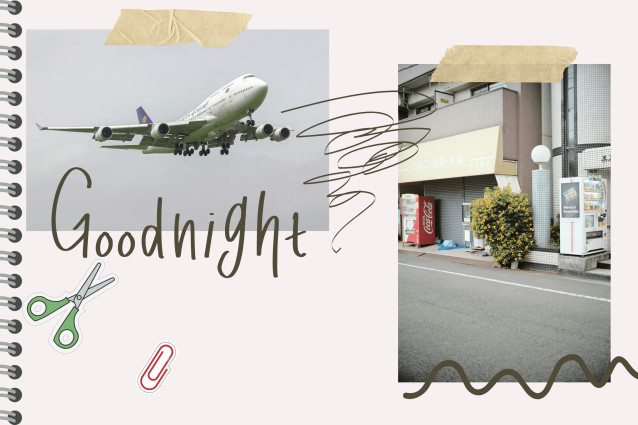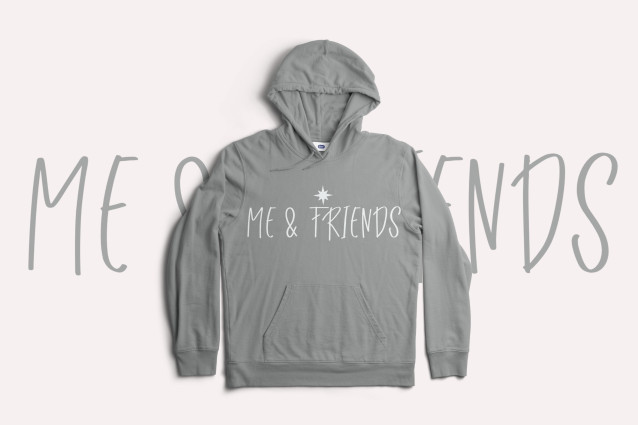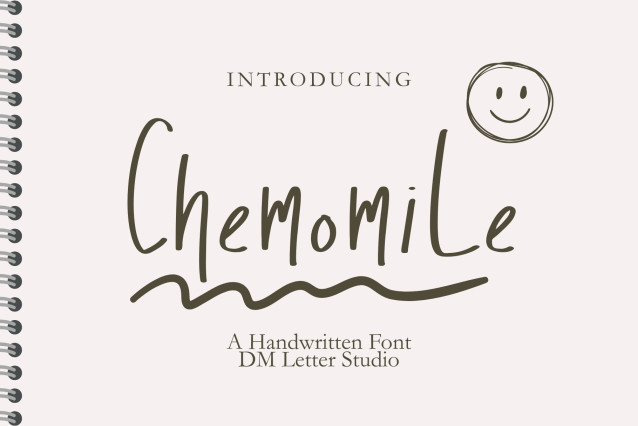
Chemomile Font
Chemomile Font is a delightful and playful handwriting font inspired by the gentle charm of handwritten notes and cozy afternoons. Its rounded curves and bouncy letterforms make it perfect for children’s projects, planners, quote prints, greeting cards, product packaging, and anything that needs a personal, heartwarming touch. This font radiates joy and cuteness while maintaining clarity and versatility.